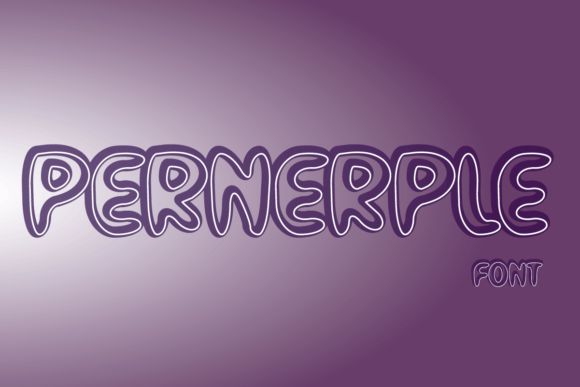
Introducing Pernerple Font: A Typographic Wonderland for Designers
In the realm of digital artistry, where fonts hold the power to transform ordinary words into captivating expressions, Pernerple Font emerges as a radiant gem, a decorative masterpiece crafted with meticulous attention to detail. Created by the visionary minds at Laura's Imperfections, Pernerple promises to ignite your creativity and elevate your designs to breathtaking heights.
With its playful charm and captivating allure, Pernerple Font dances across the screen, effortlessly capturing the essence of joy and lightheartedness. Each letter, meticulously crafted with organic curves and whimsical flourishes, invites you on an enchanting journey through the world of imagination.
Dive into a world of endless possibilities with Pernerple Font, where your creative visions take flight. Its enchanting aura lends itself seamlessly to a multitude of projects, from vibrant sublimation prints to heartfelt greeting cards, from eye-catching advertisements to unforgettable birthday party invitations. Unleash your inner artist and let Pernerple Font guide you through a symphony of colors and emotions.
Capture the essence of celebration with Pernerple Font, as it transforms your words into jubilant expressions, ready to grace the pages of your scrapbook or dance across the walls of your home. Let Pernerple Font be your artistic companion, guiding you through the creation of invitations that sparkle with joy and posters that burst with energy.
Pernerple Font is not just a collection of glyphs; it's an open invitation to let your imagination soar. Its whimsical nature lends itself effortlessly to book covers that captivate the reader's attention, brand names that exude personality, and titles that demand to be read. With Pernerple Font, your creative expressions will leave an indelible mark on the world.